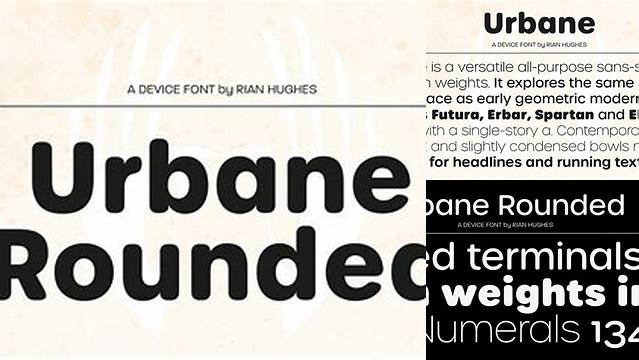
Are you looking to enhance your design projects with a modern, versatile, and aesthetically pleasing font? Look no further! The urbane rounded medium font is an excellent choice for various applications, offering a blend of readability and contemporary style. In this article, we will delve into everything you need to know about this fantastic font, including its characteristics, ideal uses, where to find it for free download, and tips for incorporating it effectively into your designs.
What is Urbane Rounded Medium Font?
The urbane rounded medium font is a typeface characterized by its soft, rounded edges and balanced letterforms. It belongs to the sans-serif family, which means it lacks the small decorative strokes (serifs) found in traditional fonts like Times New Roman. This gives it a clean and modern appearance, making it suitable for a wide range of design purposes. The "medium" weight indicates that the font has a moderate thickness, providing a good balance between boldness and subtlety.
Key Characteristics:
- Rounded Edges: The rounded terminals of the letters give the font a friendly and approachable feel. This is in contrast to fonts with sharp, angular edges that can sometimes appear more formal or aggressive.
- Sans-Serif Design: The absence of serifs contributes to the font's modern and clean aesthetic. Sans-serif fonts are generally considered more readable on screens, making them a popular choice for digital applications.
- Medium Weight: The medium weight strikes a balance between being too light (which can be difficult to read) and too bold (which can be overwhelming). This makes it versatile for both headings and body text.
- Balanced Letterforms: The letterforms are carefully designed to ensure visual harmony and readability. The spacing between letters is also well-considered, contributing to a pleasant reading experience.
- Versatility: The urbane rounded medium font can be used in a variety of design contexts, from websites and mobile apps to print materials and branding.
Ideal Uses:
- Websites and Mobile Apps: Its readability and clean design make it ideal for user interfaces, headings, and body text.
- Logos and Branding: The font's modern and approachable aesthetic can help create a positive brand image.
- Marketing Materials: Use it in brochures, flyers, and posters to convey a sense of modernity and clarity.
- Presentations: Its readability makes it suitable for presentation slides, ensuring your message is easily understood.
- Editorial Design: It can be used in magazines and books, particularly for headings and subheadings.